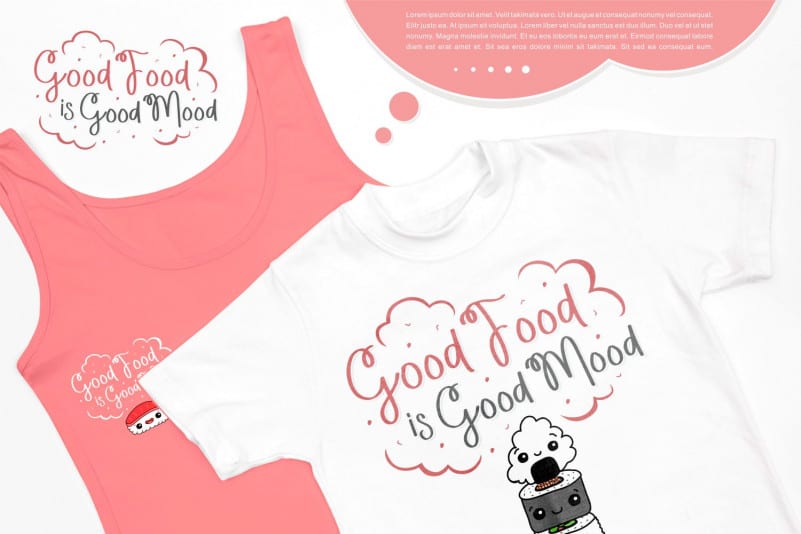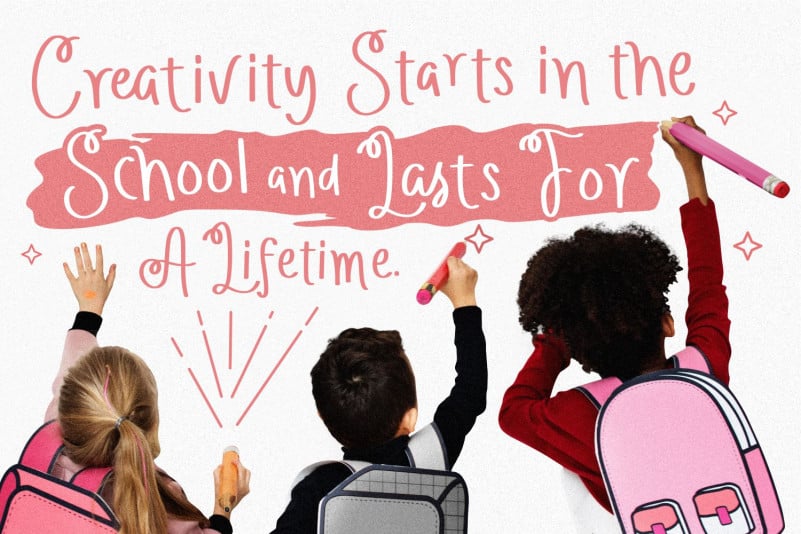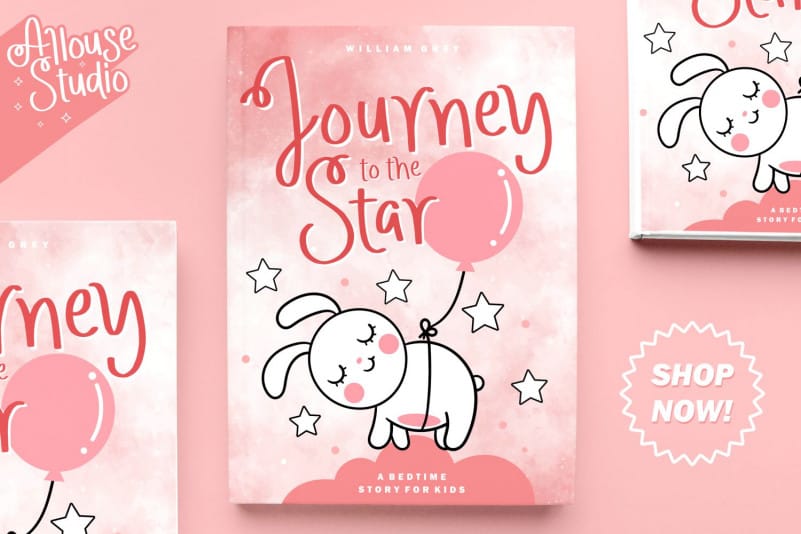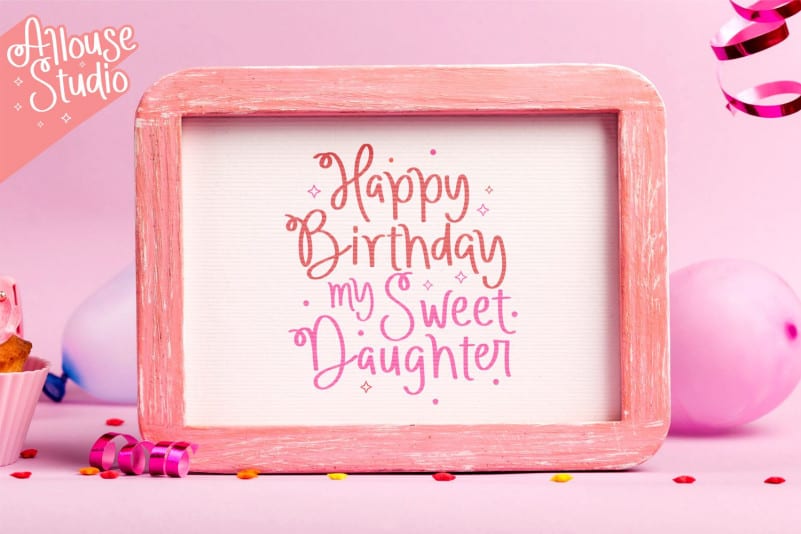
Star Whisper Script Font
Star Whisper Script Font is a cute script font. Get creative with its childlike playfulness, and use it to brighten up any kids and school project!